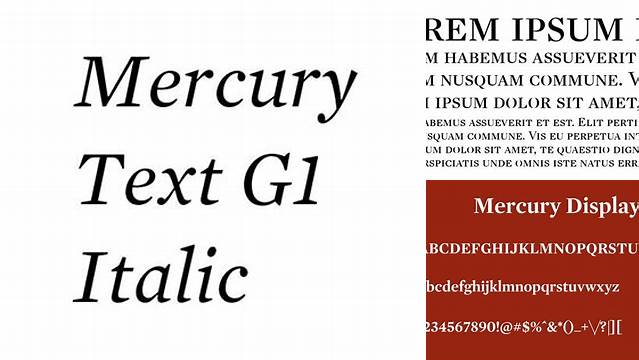
Mercury Display Italic: Free Font Download Guide
Are you looking to elevate your design projects with a touch of elegance and sophistication? Mercury Display Italic font is a fantastic choice, offering a unique blend of classic and modern aesthetics. This font is known for its graceful curves and stylish appearance, making it perfect for a wide range of applications. In this comprehensive guide, weβll delve into everything you need to know about Mercury Display Italic, including its features, best uses, and how to download it for free. Guys, finding the right font can sometimes feel like searching for a needle in a haystack, but trust me, Mercury Display Italic is one gem you don't want to miss! It's like that secret ingredient that can take your designs from good to amazing. Whether you're a seasoned designer or just starting out, this font can add that extra flair you've been looking for. So, let's dive in and explore all the wonderful things Mercury Display Italic has to offer!
What Makes Mercury Display Italic Special?
Mercury Display Italic stands out due to its distinctive design elements. The italic slant adds a dynamic and flowing feel, making it ideal for headlines, logos, and other display purposes. The elegant serifs provide a classic touch, while the overall structure maintains a contemporary look. This font isn't just another typeface; it's a statement. It's the kind of font that whispers sophistication and style. Think of it as the little black dress of fonts β versatile, timeless, and always in vogue. Its unique character shapes and balanced weight distribution make it incredibly legible, even at larger sizes, which is crucial for display purposes. The subtle nuances in each letterform contribute to its overall charm, making it a font thatβs both eye-catching and easy to read. The italic styling lends a sense of movement and energy, making it perfect for projects that need to convey a sense of dynamism and flair. So, whether you're designing a sleek website header or a striking poster, Mercury Display Italic has the versatility to meet your needs. The magic of this font lies in its ability to blend classic elegance with a modern sensibility. It's not just about the letters themselves; it's about the feeling they evoke. And Mercury Display Italic? It evokes a sense of grace, sophistication, and timeless style.
Key Features of Mercury Display Italic
- Elegant Serifs: The serifs add a touch of traditional charm, enhancing the font's overall sophistication.
- Italic Slant: The italic styling gives the font a dynamic and flowing appearance, perfect for drawing attention.
- Versatile Use: Suitable for headlines, logos, branding, and various display purposes.
- High Legibility: Designed to be easily readable, even at larger sizes.
- Unique Design: A blend of classic and modern elements, making it stand out from typical italic fonts. It's not just about the aesthetics, though. The functionality of Mercury Display Italic is equally impressive. The font is carefully crafted to ensure maximum readability across different mediums, from print to digital. The spacing between letters, the weight distribution, and the overall letterforms are all meticulously designed to create a harmonious and legible typeface. This is especially important for display fonts, which are often used in headlines and titles where clarity is paramount. The elegant serifs not only add to the visual appeal but also help to guide the eye, making the text easier to follow. The italic slant, while adding a sense of dynamism, is also carefully calibrated to maintain legibility. It's a delicate balance, but Mercury Display Italic strikes it perfectly. In addition to its visual and functional qualities, Mercury Display Italic also boasts a certain versatility that makes it a valuable asset in any designer's toolkit. It can be used in a wide range of projects, from branding and advertising to editorial design and web typography. Whether you're aiming for a classic, refined look or a more contemporary feel, Mercury Display Italic can adapt to suit your needs. It's a font that can truly do it all, guys, making it a must-have for anyone serious about design.
Best Uses for Mercury Display Italic
Mercury Display Italic is an excellent choice for a variety of design projects. Its elegant and dynamic appearance makes it particularly well-suited for: This font is like the Swiss Army knife of typography β versatile and reliable. But to really get the most out of it, you need to know where it shines. Think of Mercury Display Italic as your go-to font for those projects where you want to make a statement, where you want to grab attention without sacrificing sophistication. It's not just about making things look pretty; it's about conveying a message with style and grace. So, let's explore some of the specific areas where Mercury Display Italic truly excels.
Headlines and Titles
- The italic style commands attention, making it ideal for headlines in magazines, websites, and posters.
Mercury Display Italic truly shines when used for headlines and titles. Its inherent elegance and dynamic slant make it a natural choice for grabbing the reader's attention. Imagine a magazine cover with a bold, italicized headline in Mercury Display β it's instantly captivating. The same goes for website headers; this font can help you make a strong first impression. The key here is the balance between style and readability. Mercury Display Italic isn't just about looking good; it's about communicating effectively. The italic slant adds a sense of urgency and importance, making your headlines stand out from the crowd. But the well-defined serifs and balanced letterforms ensure that the text remains legible, even at larger sizes. This is crucial for headlines, where clarity is just as important as visual appeal. Whether you're designing a sleek, modern website or a classic, print-based magazine, Mercury Display Italic can help you create headlines that are both eye-catching and easy to read. It's the perfect way to make a statement and draw your audience in. Think of it as the opening act of your design β it needs to be strong, memorable, and set the tone for what's to come. And trust me, guys, Mercury Display Italic delivers on all fronts. It's the font that screams, "Look at me!" without ever being obnoxious. It's a subtle power, but a power nonetheless. So, if you're looking to make a splash with your headlines, Mercury Display Italic is definitely worth considering.
Logos and Branding
- Its unique character lends a sophisticated touch to brand identities and logos.
In the realm of logos and branding, Mercury Display Italic offers a unique opportunity to create a sophisticated and memorable brand identity. A logo is often the first point of contact between a brand and its audience, so it's crucial to make a lasting impression. This font's elegant serifs and dynamic italic slant can add a touch of class and distinction to any logo design. Think about some of the most iconic logos out there β many of them utilize unique and distinctive typography. Mercury Display Italic has the potential to join that elite group. Its subtle yet striking appearance can help your brand stand out from the competition. The key to successful branding is consistency, and a well-chosen font plays a crucial role in establishing a consistent visual identity. Mercury Display Italic can be used across a wide range of branding materials, from business cards and letterheads to websites and marketing collateral. This helps to create a cohesive and professional brand image. The font's versatility also allows it to be adapted to different branding styles. Whether you're aiming for a classic, traditional look or a more modern, contemporary feel, Mercury Display Italic can be customized to suit your needs. This makes it a valuable asset for brands in a variety of industries. When it comes to logo design, the font you choose speaks volumes about your brand's personality and values. Mercury Display Italic conveys a sense of sophistication, elegance, and attention to detail. It's a font that says, "We care about quality," and that's a message that resonates with customers. So, if you're looking to create a logo that exudes class and style, Mercury Display Italic is definitely a font to consider. Guys, it's like giving your brand a makeover with a touch of timeless elegance.
Advertising Materials
- Perfect for creating eye-catching advertisements, posters, and promotional materials.
When it comes to advertising materials, you need a font that not only grabs attention but also conveys your message effectively. Mercury Display Italic is an excellent choice for creating eye-catching advertisements, posters, and promotional materials. Its dynamic italic slant naturally draws the eye, making it perfect for headlines and key messages. In the world of advertising, you have seconds β maybe even milliseconds β to make an impact. A strong visual presence is crucial, and the right font can be your secret weapon. Mercury Display Italic offers that perfect blend of elegance and impact. It's not just about shouting your message; it's about whispering it in a way that makes people lean in and listen. The font's sophisticated serifs add a touch of class, while the italic styling conveys a sense of energy and excitement. This makes it ideal for a wide range of advertising campaigns, from print ads and posters to digital banners and social media graphics. One of the key advantages of Mercury Display Italic is its versatility. It can be used effectively in both large and small formats, ensuring that your message is clear and legible, regardless of the medium. This is especially important in advertising, where your message needs to be easily understood at a glance. The font's unique character also helps your advertising materials stand out from the clutter. In a world saturated with ads, it's essential to use typography that makes a lasting impression. Mercury Display Italic has that distinctive quality that can help your brand cut through the noise and connect with your target audience. Think of it as the secret ingredient that can transform your advertising from ordinary to extraordinary. So, if you're looking to create ads that command attention and leave a lasting impression, Mercury Display Italic is a font that's definitely worth exploring. Guys, it's like giving your ads a dose of visual adrenaline!
In conclusion, Mercury Display Italic font is a versatile and elegant typeface that can enhance a wide range of design projects. By utilizing the resources and tips outlined in this guide, you can download Mercury Display Italic for free and start incorporating it into your work today. Go ahead, give your designs a touch of italic flair! So, guys, we've journeyed through the world of Mercury Display Italic, explored its many virtues, and uncovered the secrets to downloading it for free. It's like we've embarked on a typographic adventure together! And now, it's time for you to take the reins and put this fantastic font to work. Remember, Mercury Display Italic is more than just a typeface; it's a tool for expression, a way to add personality and flair to your designs. It's that little something extra that can make your work stand out from the crowd. Whether you're crafting a sleek website header, designing a captivating logo, or putting together eye-catching advertising materials, Mercury Display Italic has the versatility and elegance to meet your needs. Don't be afraid to experiment and explore its different applications. Try it in various sizes, weights, and contexts. See how it interacts with different colors and design elements. The more you play with it, the more you'll discover its hidden potential. And remember, the world of typography is constantly evolving. There are always new fonts to discover, new techniques to learn, and new trends to explore. So, keep your eyes open, stay curious, and never stop experimenting. Happy designing, guys, and may your typographic adventures be filled with creativity and inspiration! You've got the knowledge, you've got the font β now go out there and create something amazing!